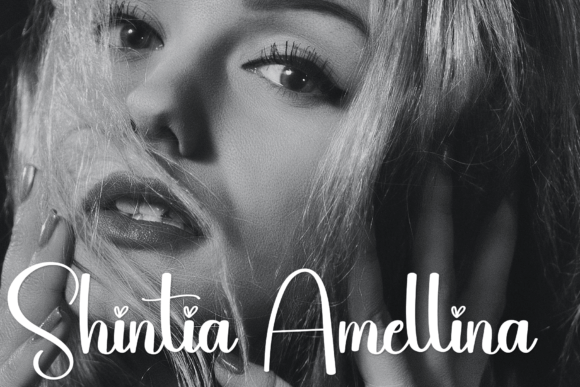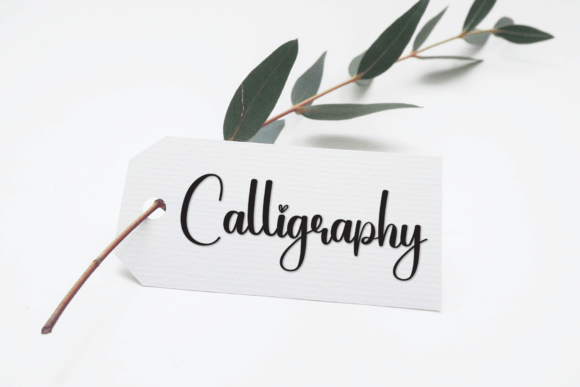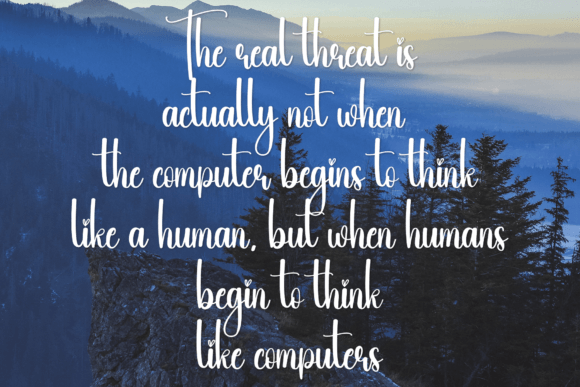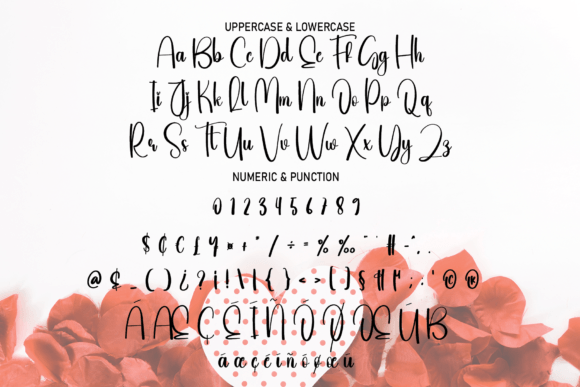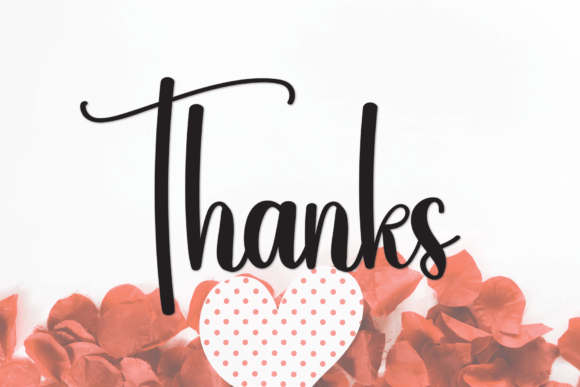
Introducing Birthday Valentine Font: The Perfect Choice for Elegant Designs
Are you looking for a font that exudes elegance and sophistication for your designs? Look no further than the Birthday Valentine Font, a stylish and elegant handwritten script font that is perfect for a variety of design projects. In this article, we’ll take a closer look at the features and benefits of this beautiful font, and explore how it can elevate your designs to the next level.
What is Birthday Valentine Font?
Birthday Valentine Font is a carefully crafted handwritten script font that is designed to add a touch of elegance and sophistication to your designs. With its flowing lines and delicate curves, this font is perfect for creating beautiful and eye-catching designs that require a personalized style. Whether you’re working on a wedding invitation, thank you card, greeting card, logo, or any other design project, Birthday Valentine Font is the perfect choice.
Key Features of Birthday Valentine Font
So, what makes Birthday Valentine Font so special? Here are some of its key features:
- Handwritten script style: Birthday Valentine Font has a beautiful handwritten script style that gives it a personal and elegant touch.
- Elegant and sophisticated: This font is designed to exude elegance and sophistication, making it perfect for high-end designs.
- Versatile: Birthday Valentine Font can be used for a variety of design projects, including wedding invitations, thank you cards, greeting cards, logos, and more.
- Easy to read: Despite its elegant style, Birthday Valentine Font is easy to read, making it perfect for designs that require a clear and concise message.
Benefits of Using Birthday Valentine Font
So, why should you choose Birthday Valentine Font for your designs? Here are some of the benefits of using this beautiful font:
- Adds a personal touch: Birthday Valentine Font’s handwritten script style adds a personal touch to your designs, making them more relatable and engaging.
- Creates a lasting impression: The elegant and sophisticated style of this font creates a lasting impression on your audience, making your designs more memorable.
- Perfect for special occasions: Birthday Valentine Font is perfect for special occasions such as weddings, anniversaries, and birthdays, where a personal and elegant touch is required.
Design Ideas Using Birthday Valentine Font
Here are some design ideas to get you started with Birthday Valentine Font:
- Wedding invitations: Use Birthday Valentine Font to create beautiful and elegant wedding invitations that set the tone for the big day.
- Thank you cards: Create personalized thank you cards for special occasions, such as weddings, baby showers, and birthdays.
- Greeting cards: Design elegant greeting cards for holidays, birthdays, and other special occasions.
- Logos and branding: Use Birthday Valentine Font to create a unique and elegant logo for your business or brand.
In conclusion, Birthday Valentine Font is a beautiful and elegant handwritten script font that is perfect for designers and crafters looking to add a touch of sophistication to their designs. With its versatile style, easy-to-use format, and elegant features, this font is perfect for a variety of design projects, from wedding invitations to logos and branding. So why wait? Download Birthday Valentine Font today and start creating stunning designs that leave a lasting impression.